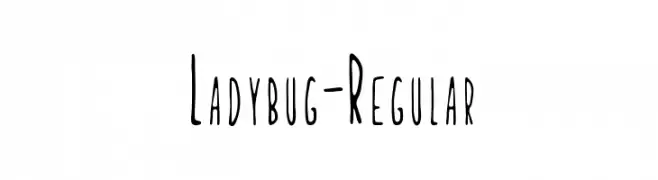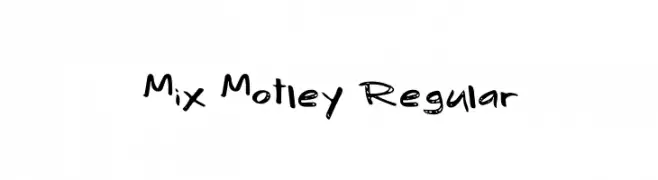
( Fonts by Dieter Steffmann )
A classic blackletter font with ornate, medieval-inspired letterforms.
( Fonts by Erico Lebedenco - www.ericolebedenco.com )
A bold, angular font with a gothic, medieval influence.
( Fonts by The Scriptorium - Dave Nalle )
A decorative font with medieval, handcrafted elements and intricate details.
( Fonts by Eliot Truelove - eliottruelove.blogspot.com )
A bold, gothic-inspired font with sharp, angular edges and a dramatic flair.
( Fonts by David Rakowski )
A sophisticated serif font with sharp angles and elegant curves.
( Fonts by dartcanada.tripod.com - Darren Rigby )
A bold, angular font inspired by ancient runic alphabets.
( Fonts by or from www.graffitifonts.net )
A playful, handwritten font with a casual and informal style.
( Fonts by www.floodfonts.com )
A bold, angular font with a modern, geometric style.
( Fonts by David Rakowski )
A decorative font with leaf-like embellishments for an organic, elegant look.
( Fonts by www.floodfonts.com )
A pixelated, retro digital font with a blocky, grid-like design.